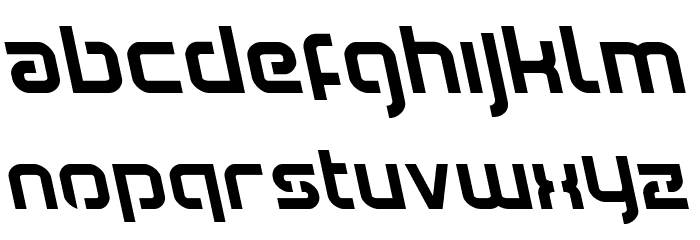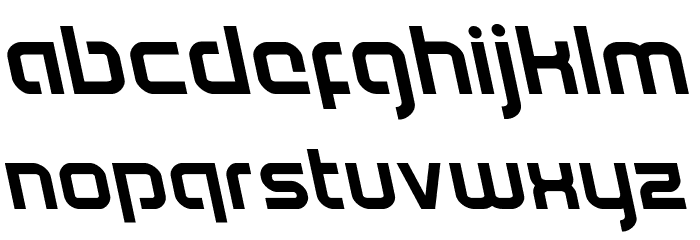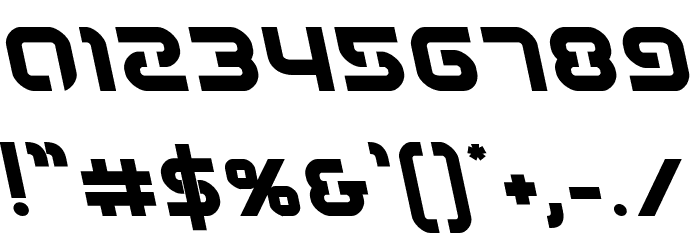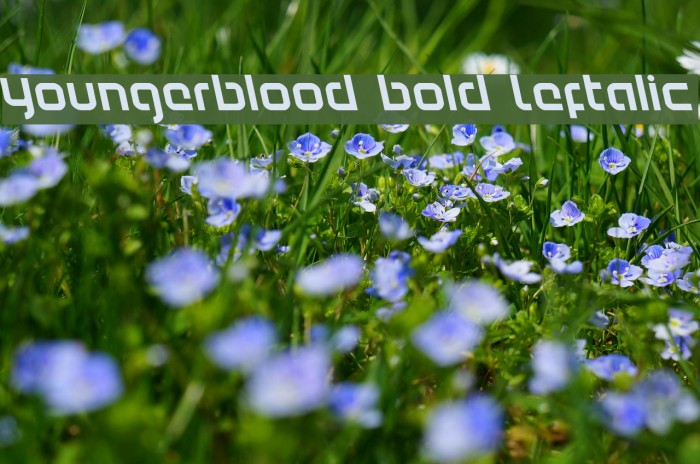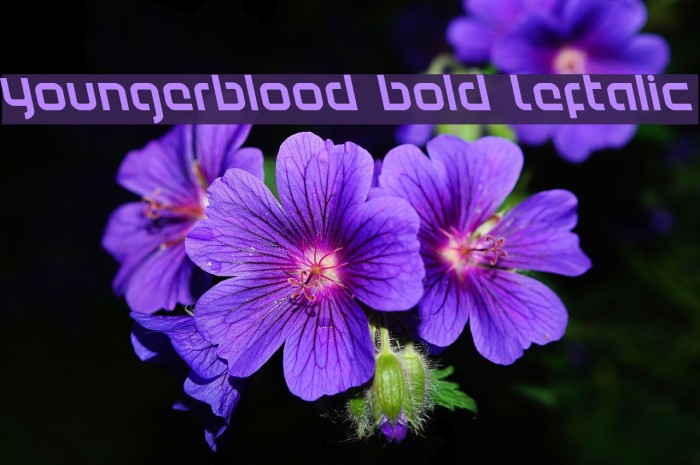
Youngerblood Bold Leftalic Font
This font features a bold and dynamic style with a distinctive leftward slant, giving it a unique and modern appearance. The characters are thick and robust, with a slightly condensed width that enhances its boldness. The design incorporates sharp angles and clean lines, creating a futuristic and edgy look. The uniform stroke thickness across all characters provides a consistent and cohesive appearance. This font is particularly striking in uppercase, where its boldness and angularity are most pronounced. The lowercase letters maintain the same stylistic elements, ensuring readability while retaining the font's unique character. The numerals and special characters are designed to match the overall aesthetic, making this font versatile for various applications.
A bold, left-slanted font with a modern and edgy design.
- Font: Youngerblood Bold Leftalic
- Weight: Bold Italic
- Proposed Projects: Ideal for branding, headlines, posters, and any project requiring a bold, modern aesthetic.